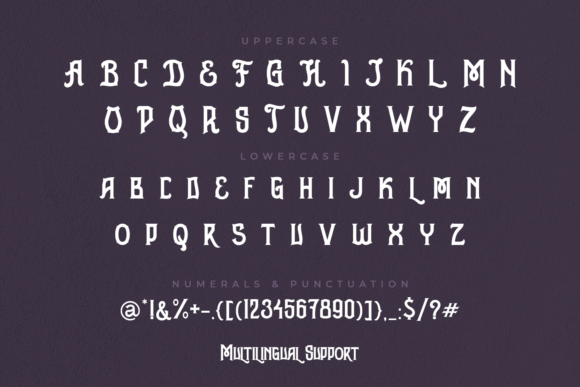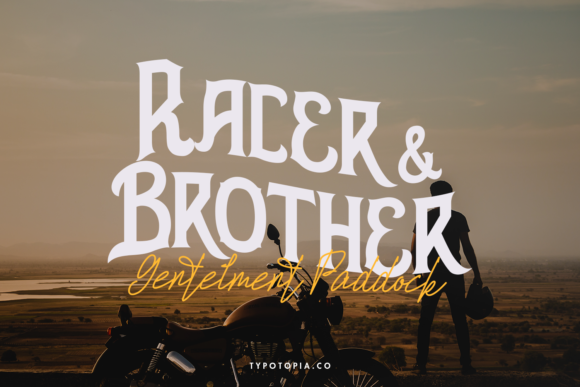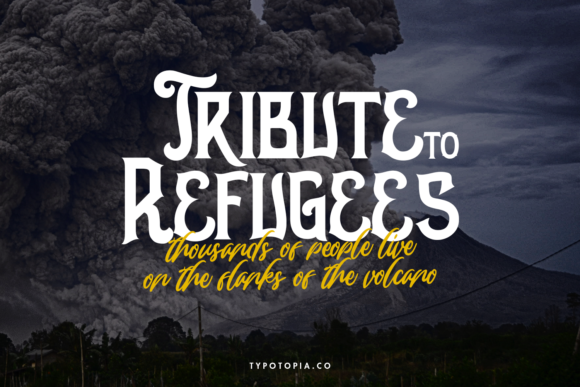
Introduction to Mahalo Font
Have you ever been working on a design project and felt like something was missing? That spark of creativity that brings your vision to life? For many designers, finding the perfect font can be the turning point that elevates their project from good to great. And that’s where the Mahalo Font comes in – a bold, original, and retro styled display font that adds a touch of nostalgia and sophistication to any design.
Whether you’re working on a high-profile branding project or a personal creative endeavor, the Mahalo Font is a valuable resource that can take your designs to the next level. With its strong, confident, and dynamic feel, this font is perfect for designers looking to add some visual interest and personality to their work. Plus, with a transparent background and high-quality design, you can be sure that your designs will stand out from the crowd.
Key Features of Mahalo Font
- High-quality, unique font design for creative projects, including a transparent background for seamless integration.
- Large character set with a range of characters, including uppercase and lowercase letters, numbers, and punctuation marks.
- High-resolution design, suitable for print and digital applications, including signage, logos, and web design.
- Unique, hand-drawn style that adds a touch of personality to any creative project, from branding to editorial content.
Honest Review: Mahalo Font
I recently had the chance to work with the Mahalo Font, and I must say it’s been a great addition to my design resources. ✨ The font is high quality, and its unique style adds a touch of creativity to any project. Whether you’re working on a graphic design project or creating a logo, the Mahalo Font is a great choice.
Here are some of the key features of the Mahalo Font:
- High quality and crisp typography
- Unique and creative style
- Transparent background for seamless designs
However, I do have a few minor complaints about the Mahalo Font. ⚠️ The font only comes in a few weights, which can limit its versatility in certain design situations. Additionally, the font may not be suitable for all types of projects, particularly those that require a more formal or traditional tone.
Overall, I’m impressed with the Mahalo Font and would definitely recommend it to designers looking for a unique and creative font for their next project. With its high quality and free download option, it’s a great design resource to have in your arsenal.